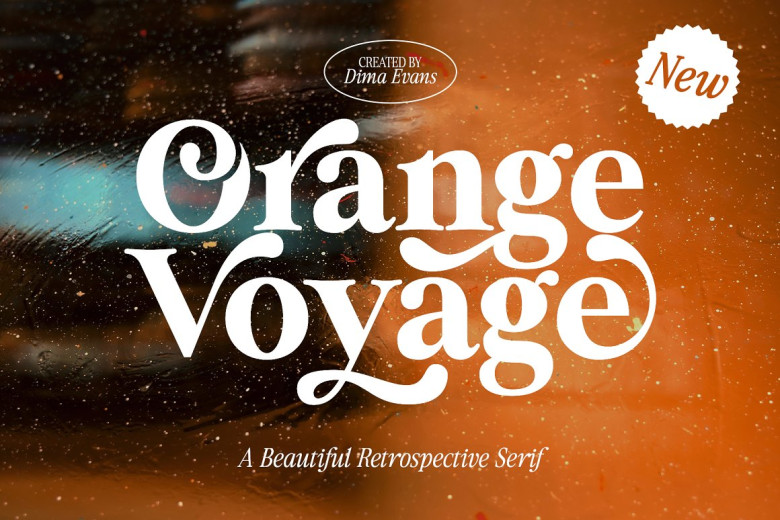
Orange Voyage Font
Orange Voyage font features an elegant vintage aesthetic with stylish flair and a touch of retro flair. Quick access is possible using OPEN TYPE built-in functions; simply add “-” or _ to any letter for instantaneous alternatives – making this feature accessible across various applications. Font is an open type font with clean shapes and precise Kerning capabilities.
Orange Voyage Serif Font